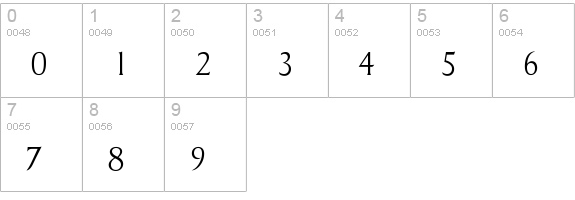
Sydney-Xlight Font Details
Sydney-Xlight font is a modern and elegant typeface that exudes sophistication and style. With its sleek lines and contemporary design, this font is perfect for creating clean and professional-looking projects. The thin weight of the Sydney-Xlight font adds a touch of grace and subtlety to any text, making it ideal for various design applications. Best of all, Sydney-Xlight font is available for free download at FontsMarket.com. This means that you can easily access this beautiful font and use it in your projects without any cost. Whether you're working on a branding project, a website design, or any other creative endeavor, Sydney-Xlight font will elevate your work to the next level with its timeless appeal. Don't miss out on the opportunity to enhance your designs with the Sydney-Xlight font. Download it for free today at FontsMarket.com and let your creativity shine!